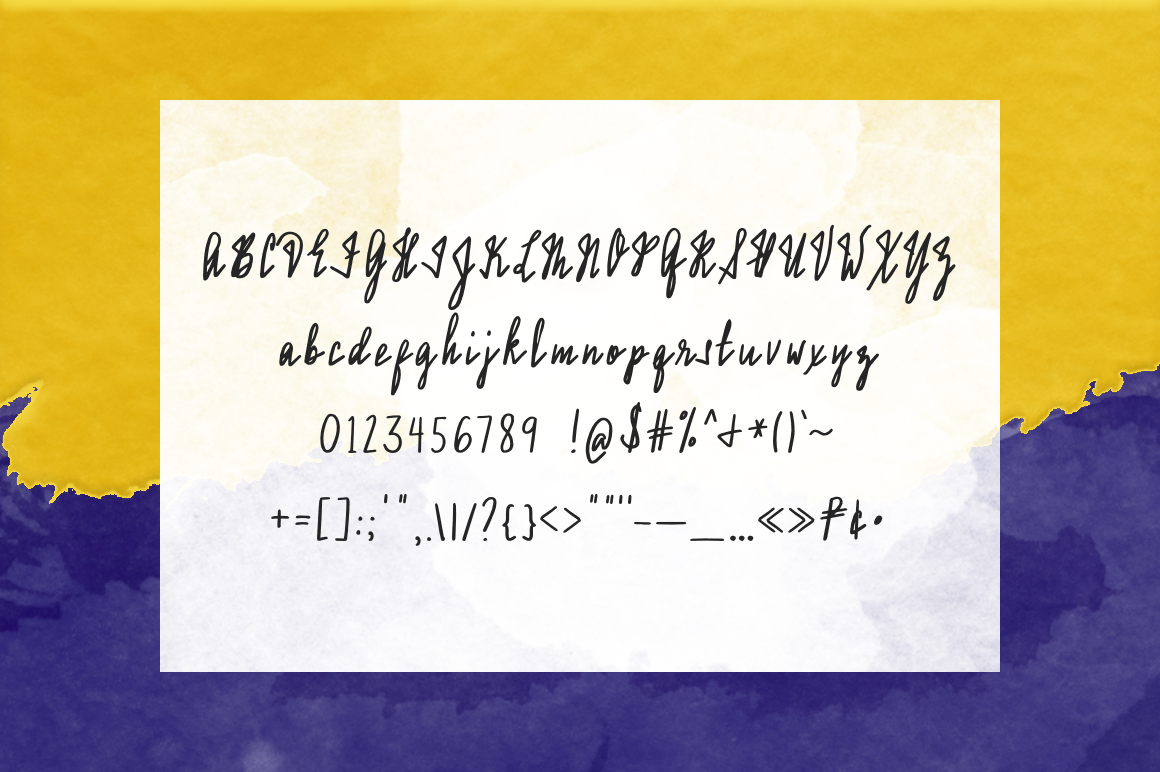
Mix Old Girl Font . Mix old girl, that distinctive old girl handwriting, turned into a font. Regular), 108 characters in total. What fonts are similar to mix old girl regular otf (400)? Mix old girl, that distinctive “old girl” handwriting, turned into a font. Browse our collection of fonts similar to mix old girl regular otf (400): Version 1.005;fontself maker 1.1.0 characters: Otf and/or ttf files for the typeface visit www.mixfonts.com to view. Mix old girl version 1.005;fontself maker 1.1.0 font (font family name: Assumption alumna, mikko sumulong , created this font after getting numerous requests from fellow assumptionistas. Otf and/or ttf files for. Mix old girl regular family: Good news is, this distinctive penmanship has been digitized as a typeface called mix old girl and can now be downloaded.
Mix old girl, that distinctive “old girl” handwriting, turned into a font. Assumption alumna, mikko sumulong , created this font after getting numerous requests from fellow assumptionistas. Otf and/or ttf files for the typeface visit www.mixfonts.com to view. Good news is, this distinctive penmanship has been digitized as a typeface called mix old girl and can now be downloaded. What fonts are similar to mix old girl regular otf (400)? Regular), 108 characters in total. Mix old girl, that distinctive old girl handwriting, turned into a font. Mix old girl version 1.005;fontself maker 1.1.0 font (font family name: Version 1.005;fontself maker 1.1.0 characters: Browse our collection of fonts similar to mix old girl regular otf (400):
Mix Old Girl Font Mix old girl, that distinctive “old girl” handwriting, turned into a font. Good news is, this distinctive penmanship has been digitized as a typeface called mix old girl and can now be downloaded. Mix old girl version 1.005;fontself maker 1.1.0 font (font family name: Otf and/or ttf files for. Mix old girl, that distinctive “old girl” handwriting, turned into a font. Browse our collection of fonts similar to mix old girl regular otf (400): Otf and/or ttf files for the typeface visit www.mixfonts.com to view. What fonts are similar to mix old girl regular otf (400)? Regular), 108 characters in total. Mix old girl, that distinctive old girl handwriting, turned into a font. Assumption alumna, mikko sumulong , created this font after getting numerous requests from fellow assumptionistas. Version 1.005;fontself maker 1.1.0 characters: Mix old girl regular family: